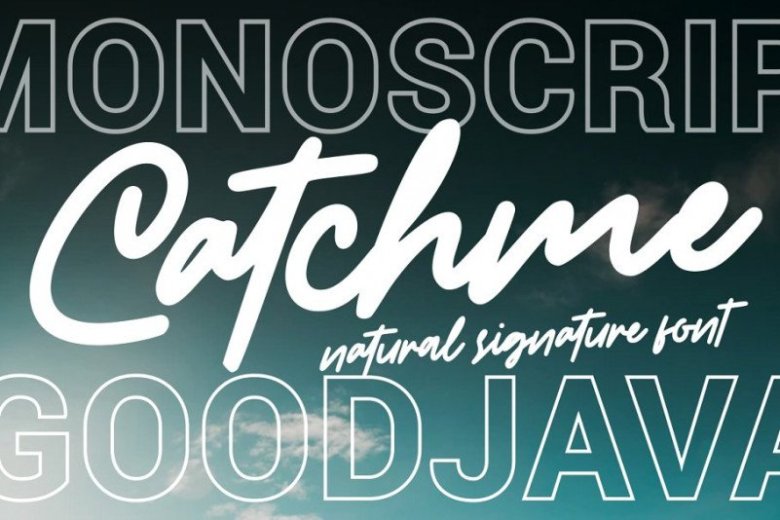
Catchme Signature Font
Hello guys. This is a balanced, contemporary handwritten script font. It’s offers a strong identity to your projects! Introducing Catchme Font. It’s designed and shared by Good Java Studio. It’s born from handwritting style fonts. Versatile for design poster, logo, branding, label, quote, headline profil, banner, t-shirt design, packaging, magazine, brochure, and many more your amazing work with this fonts.